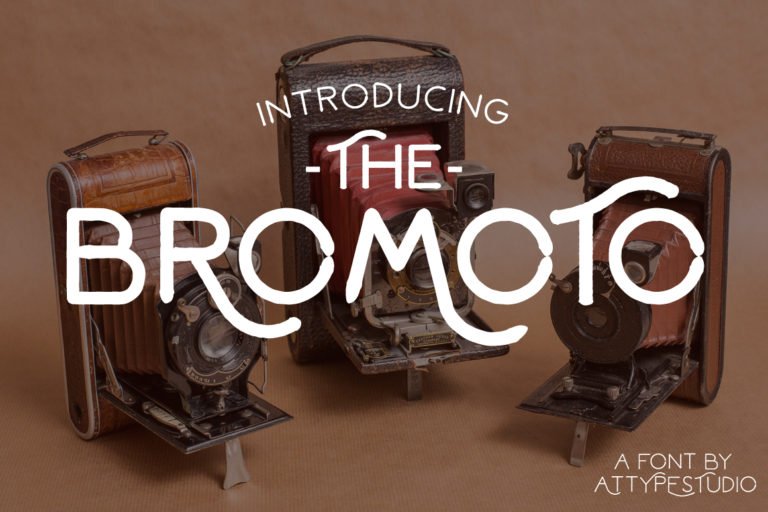
Bromoto Typeface
Give your typography design a striking look. Introducing Font Bromoto. It is designed and shared by Attype Studio. Bromoto comes in two styles: Regular and Bold. The combination of the two styles make Bromoto a fun and playful font. Suitable and applicable to create vintage design, branding, logos, product packaging, invitation, qoutes, t-shirt, label poster etc.